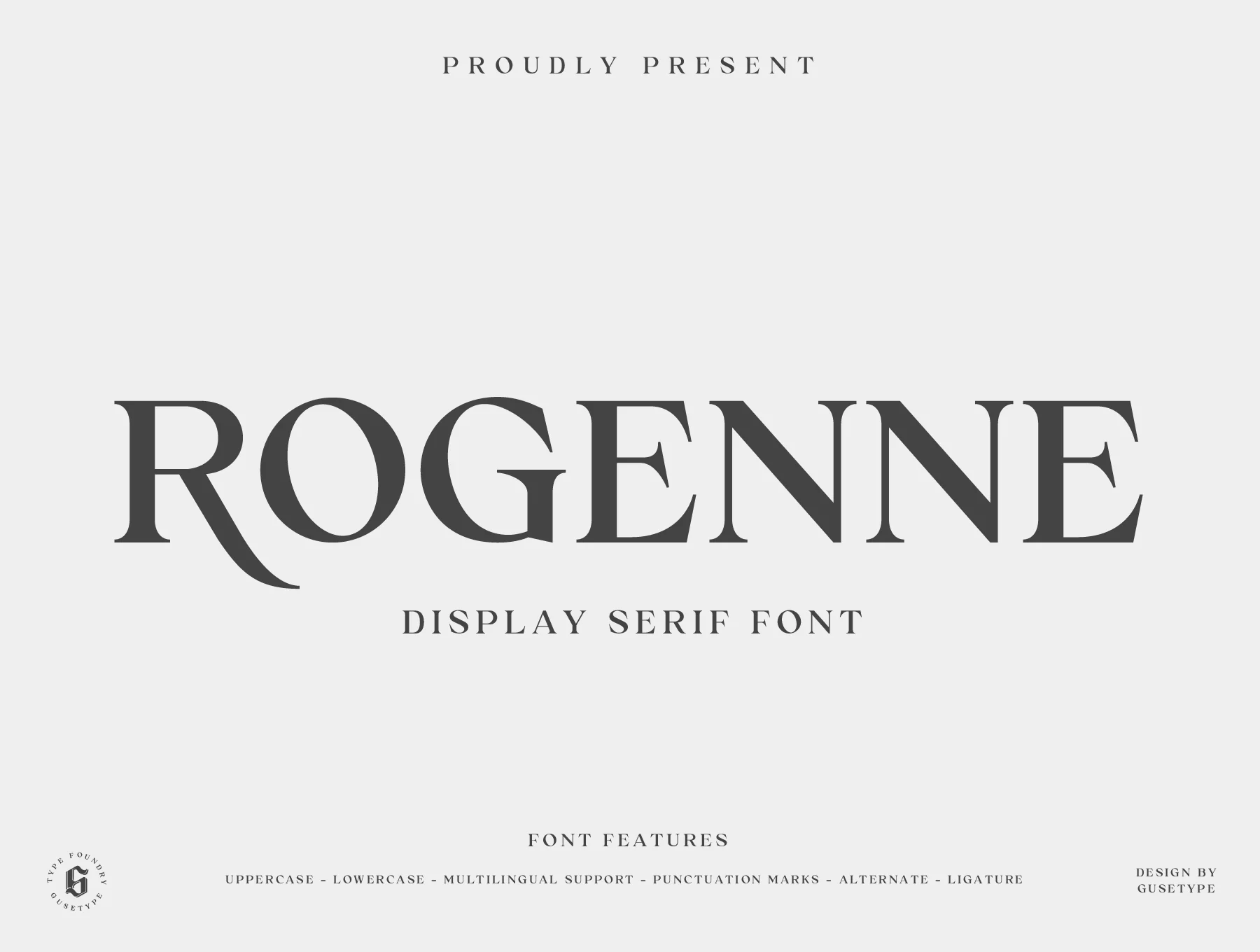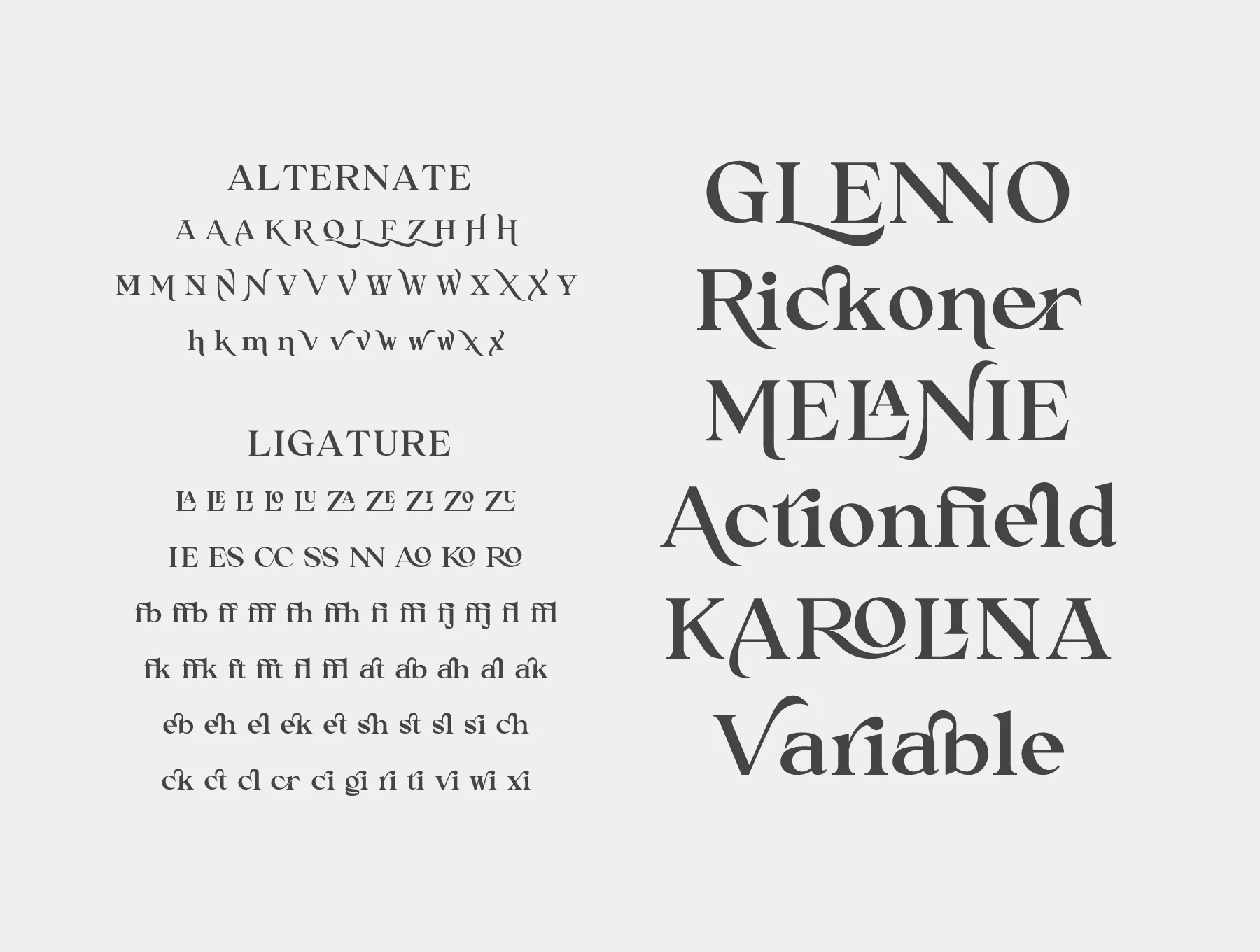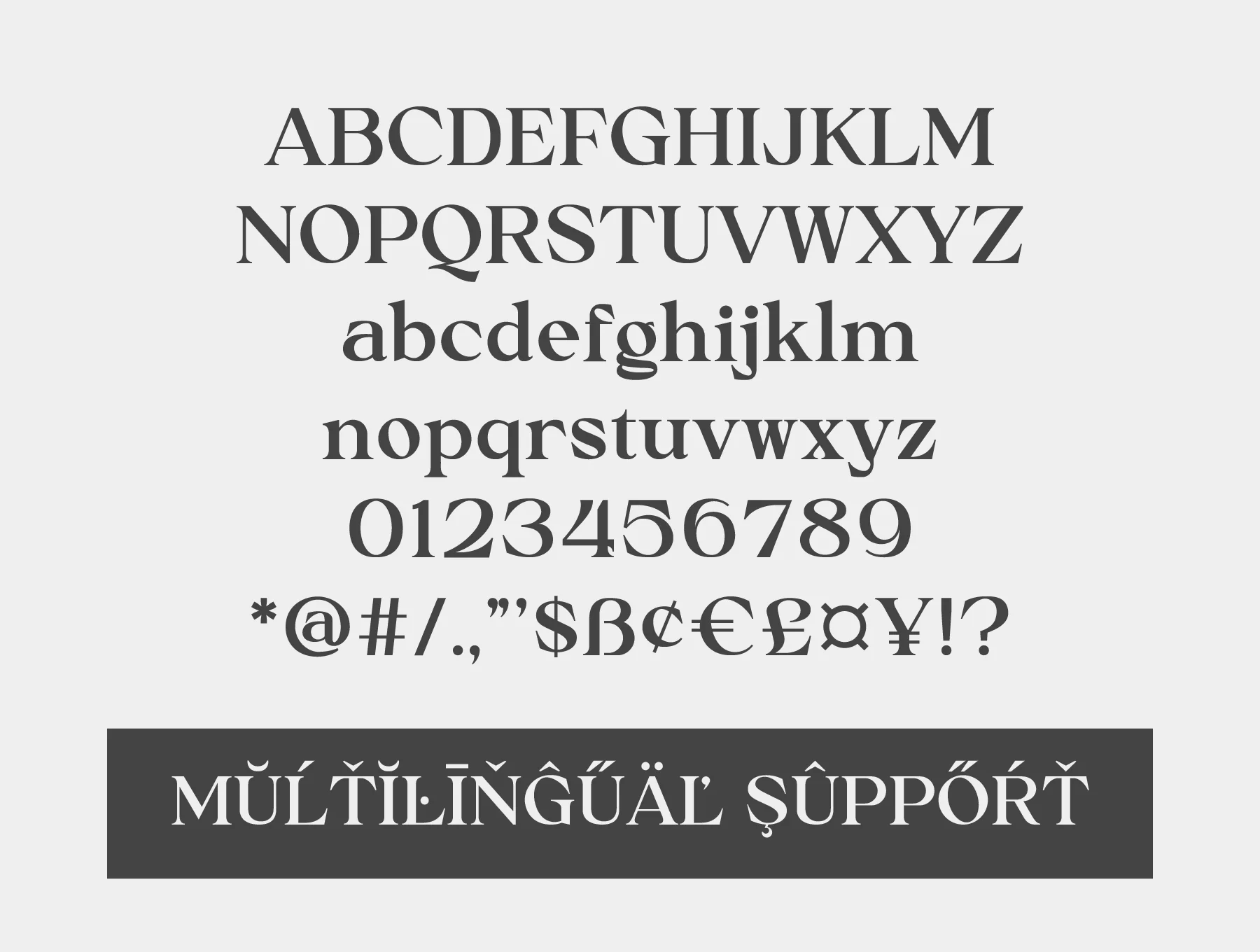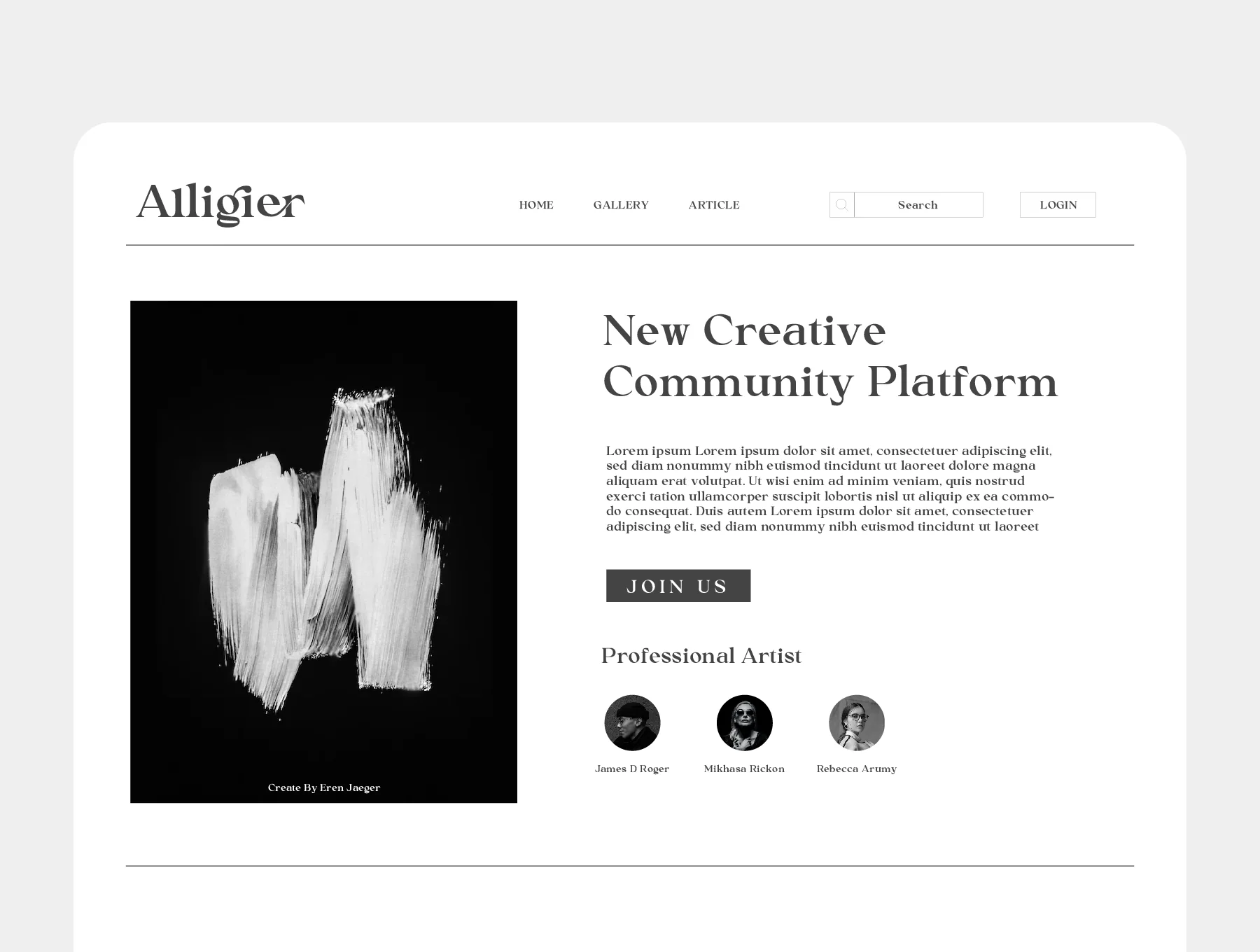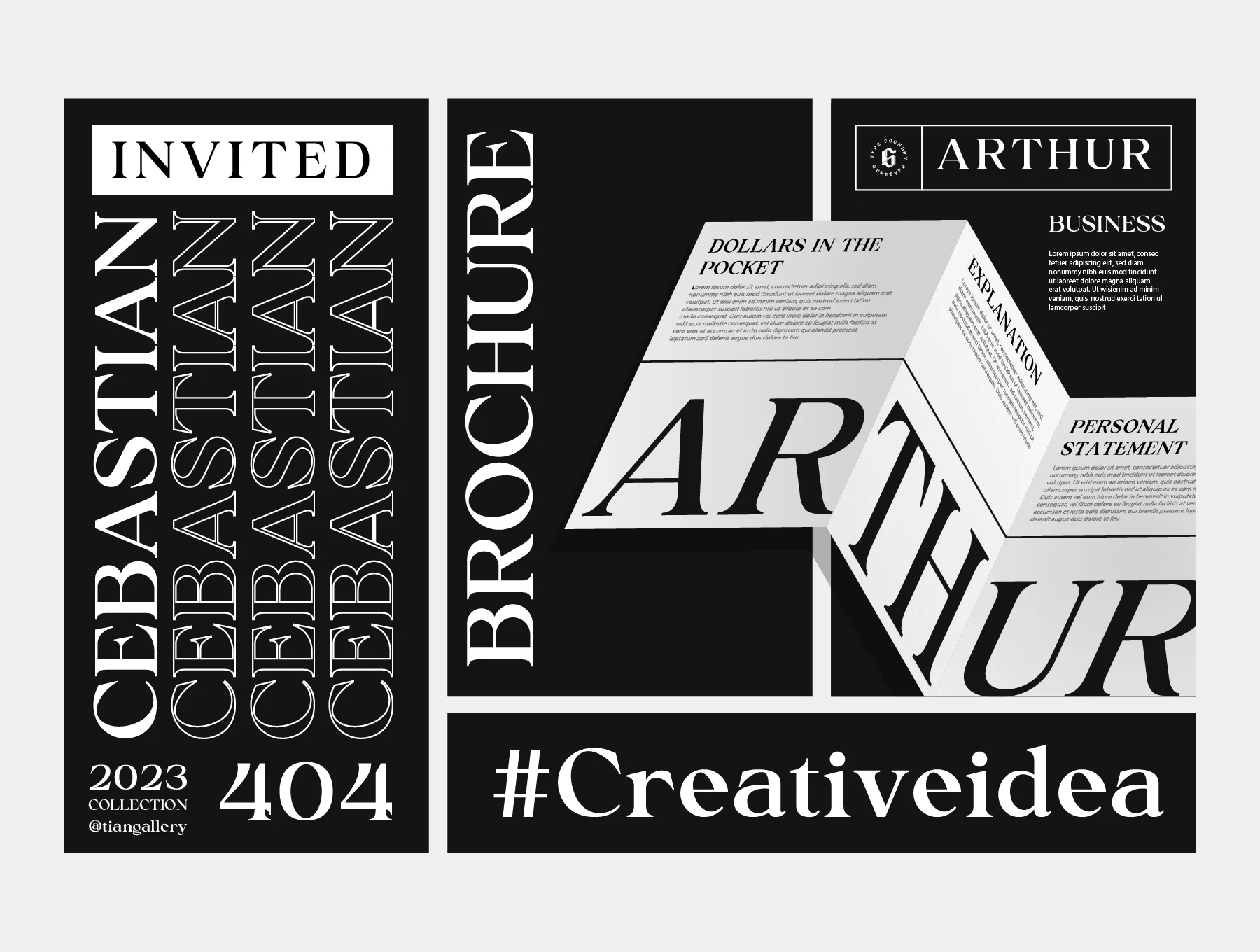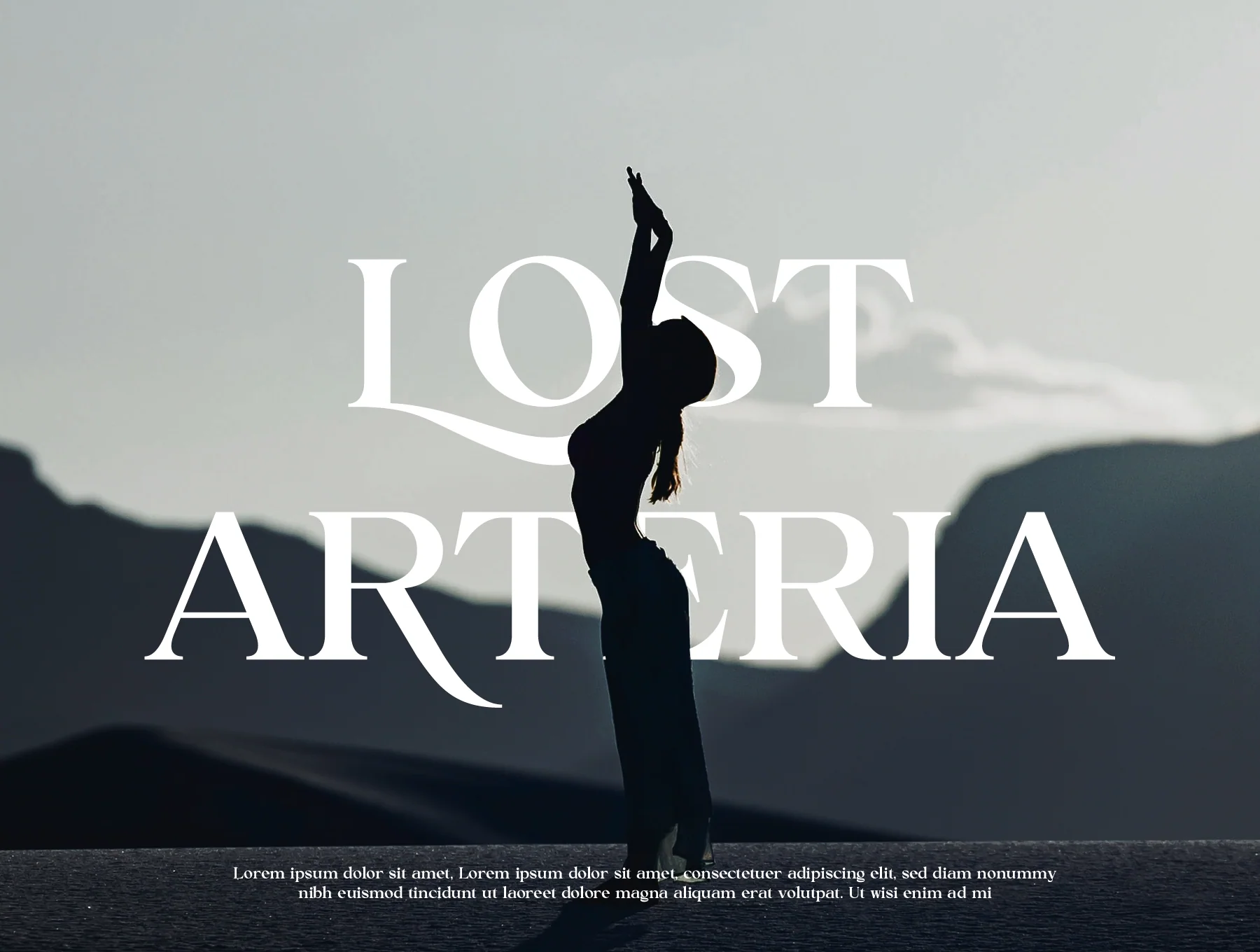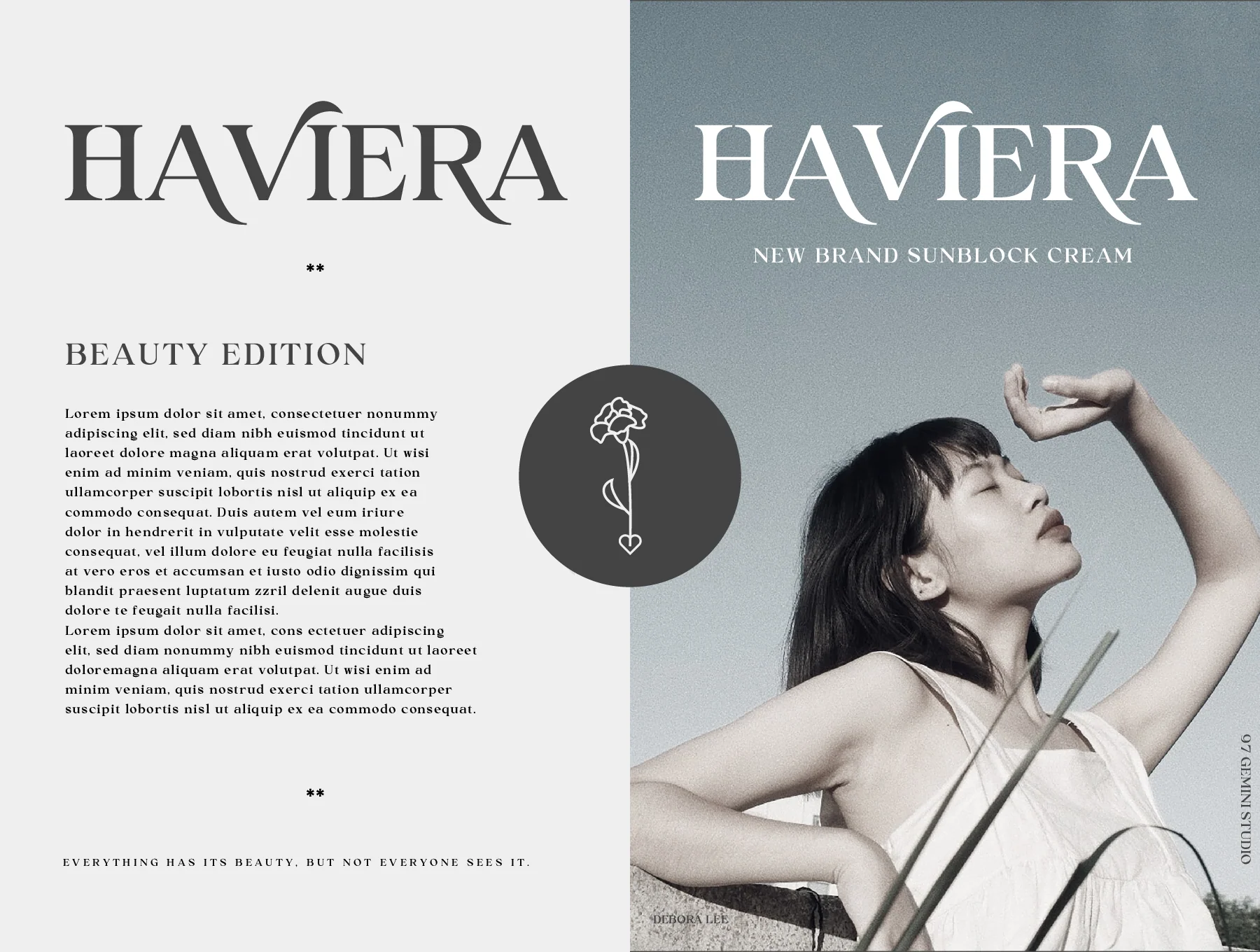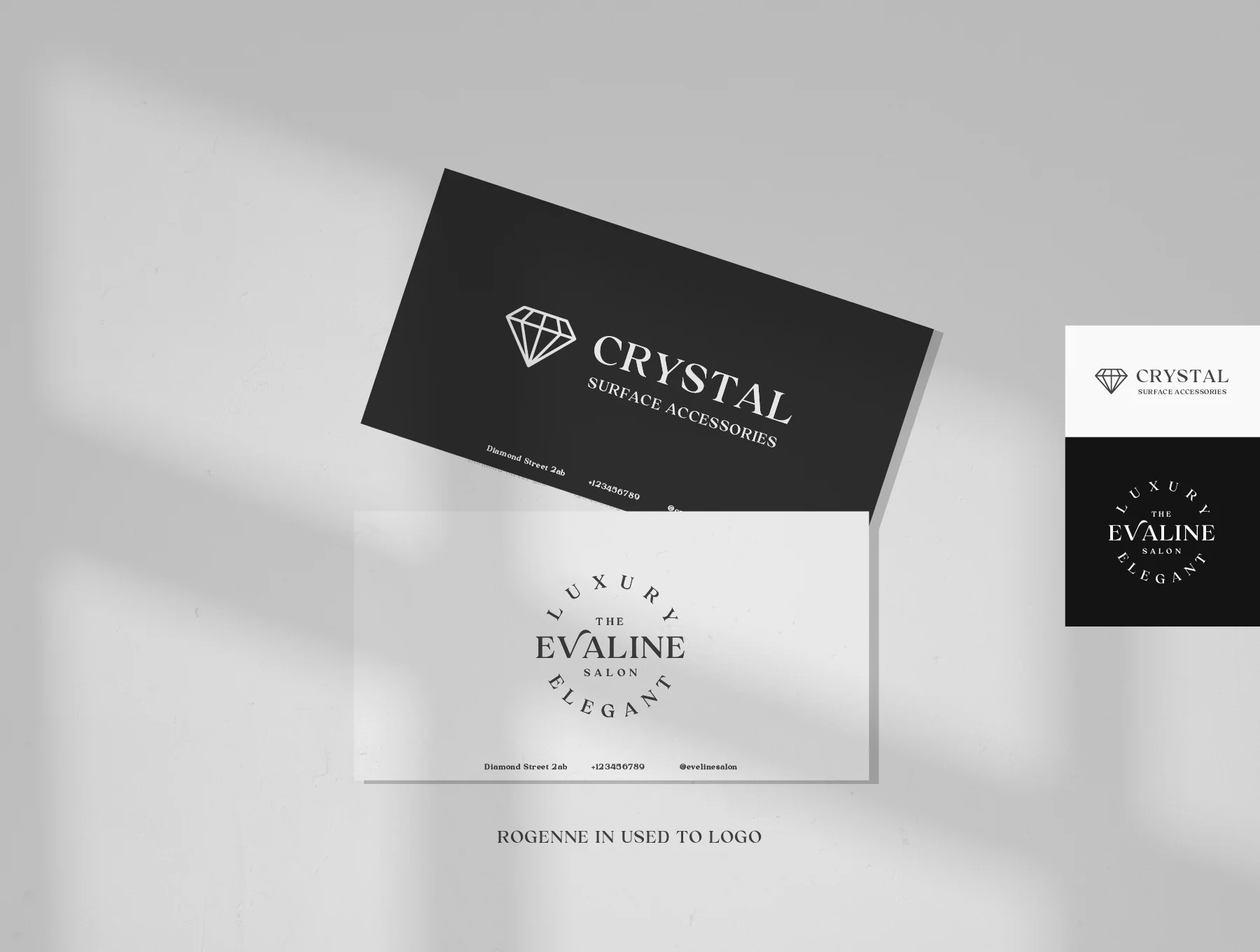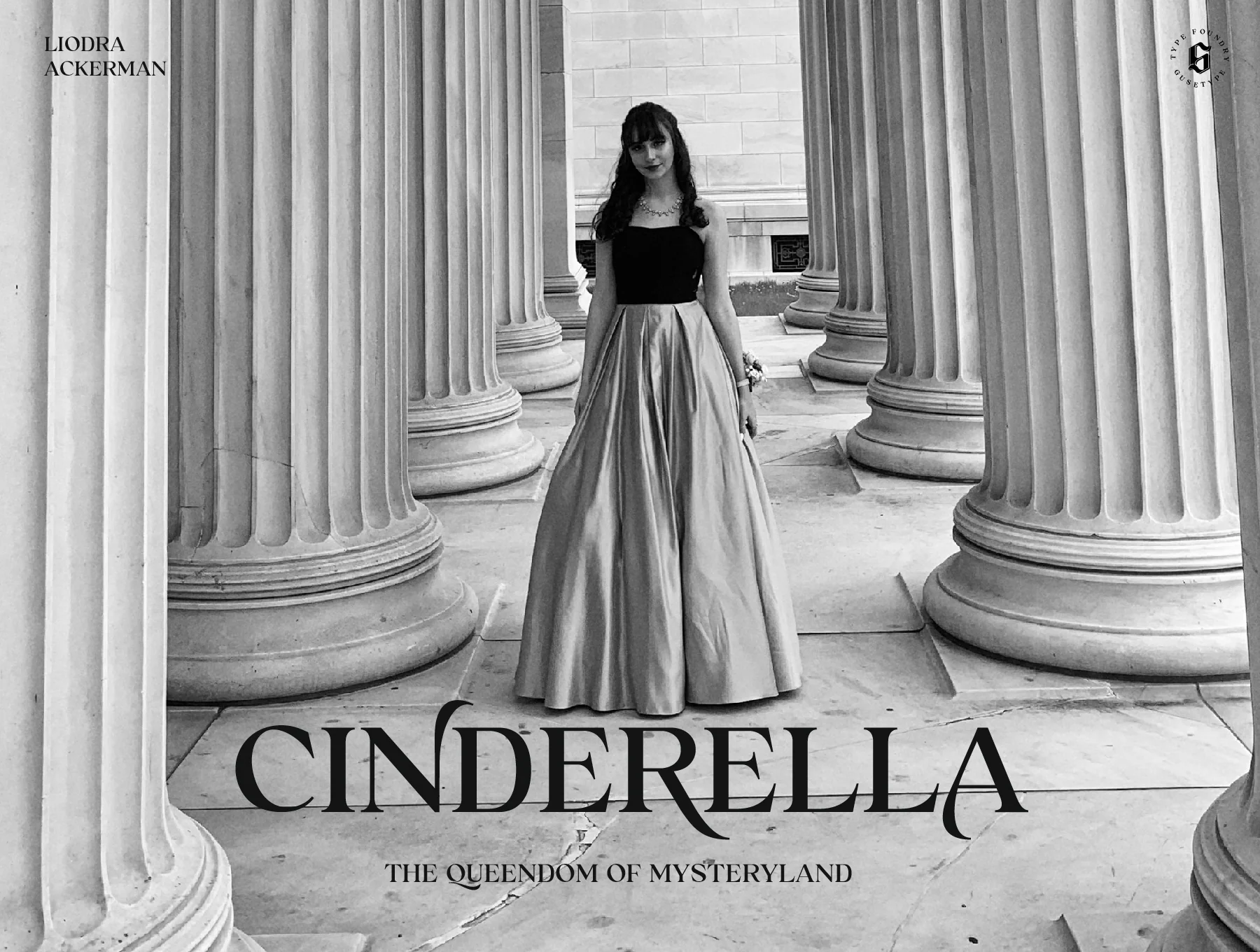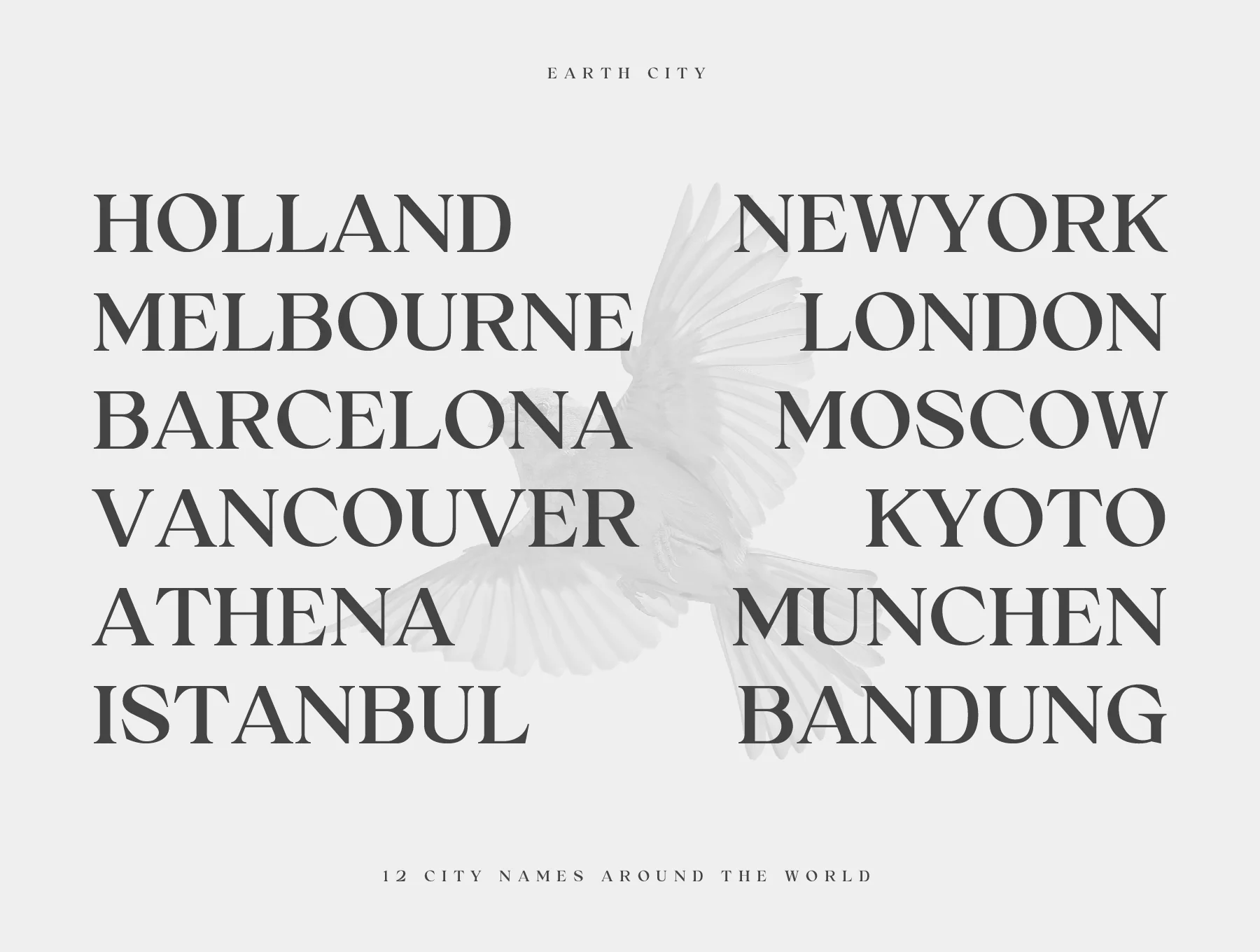
Rogenne Font
Serif Display Typeface
Default character symbols
Normal weight
Numbers and punctuation signs
Variant forms and joined glyphs
Rogenne is a display serif typeface with refined elegance in each letter, giving designs a classy, luxurious feel. It includes alternates and ligatures to enhance text for banners, brochures, logos, packaging, labels, websites, posters, branding, and more.